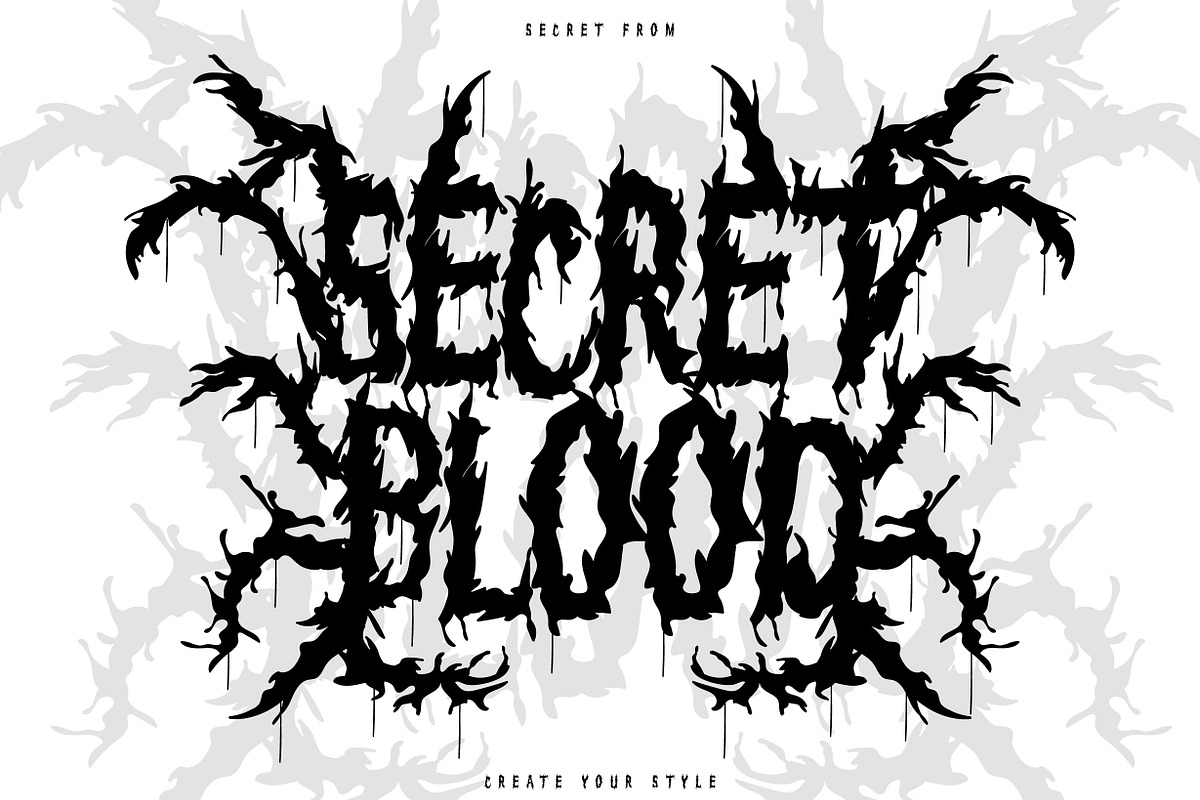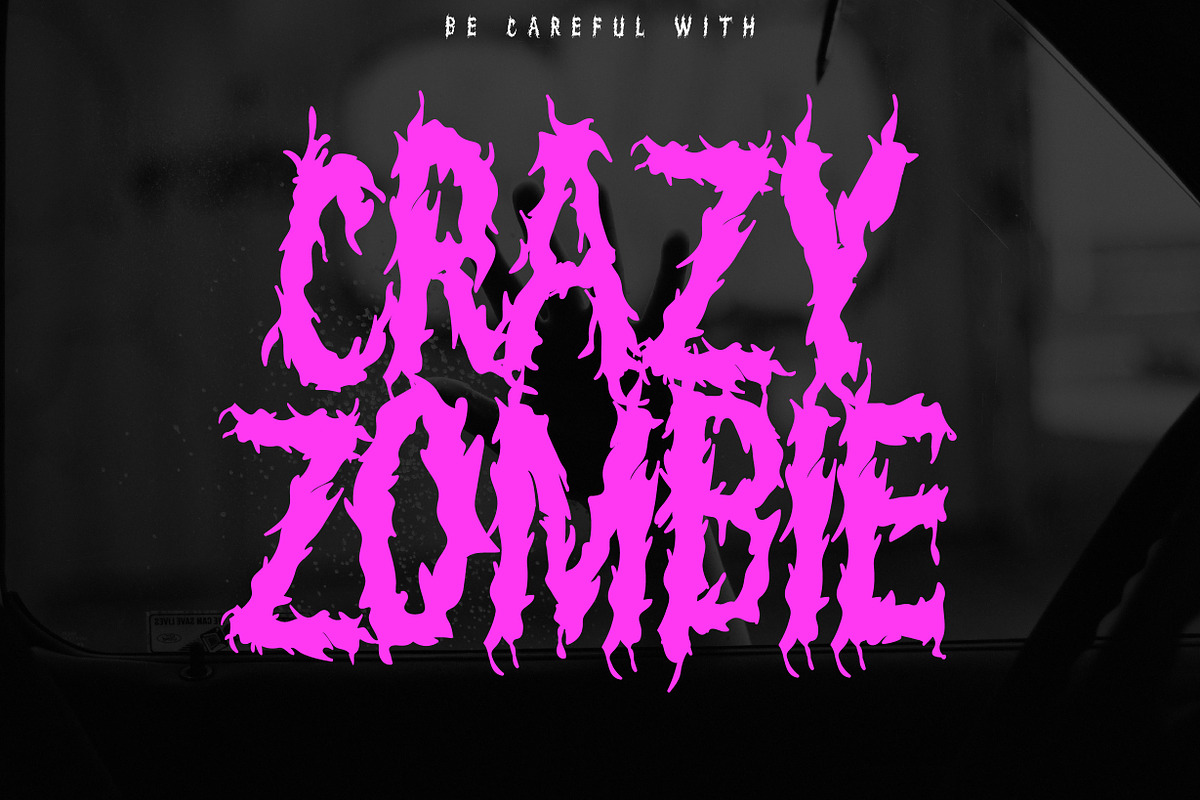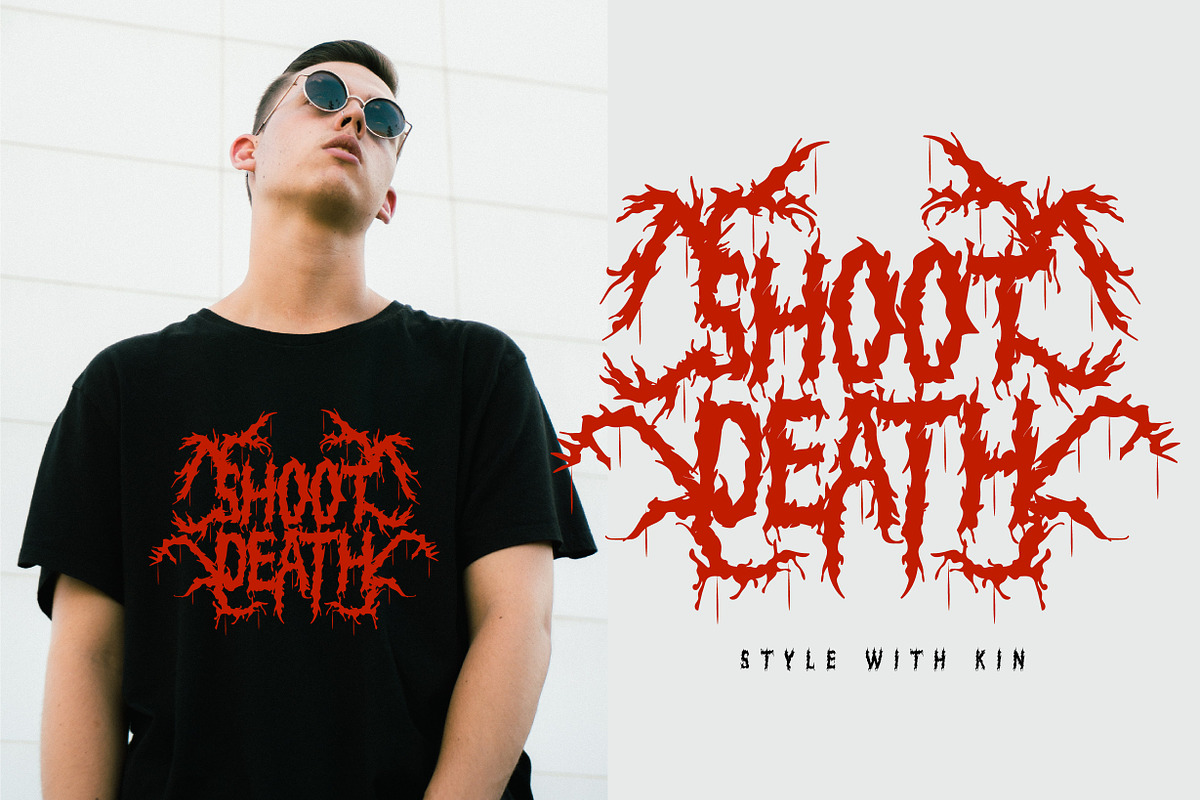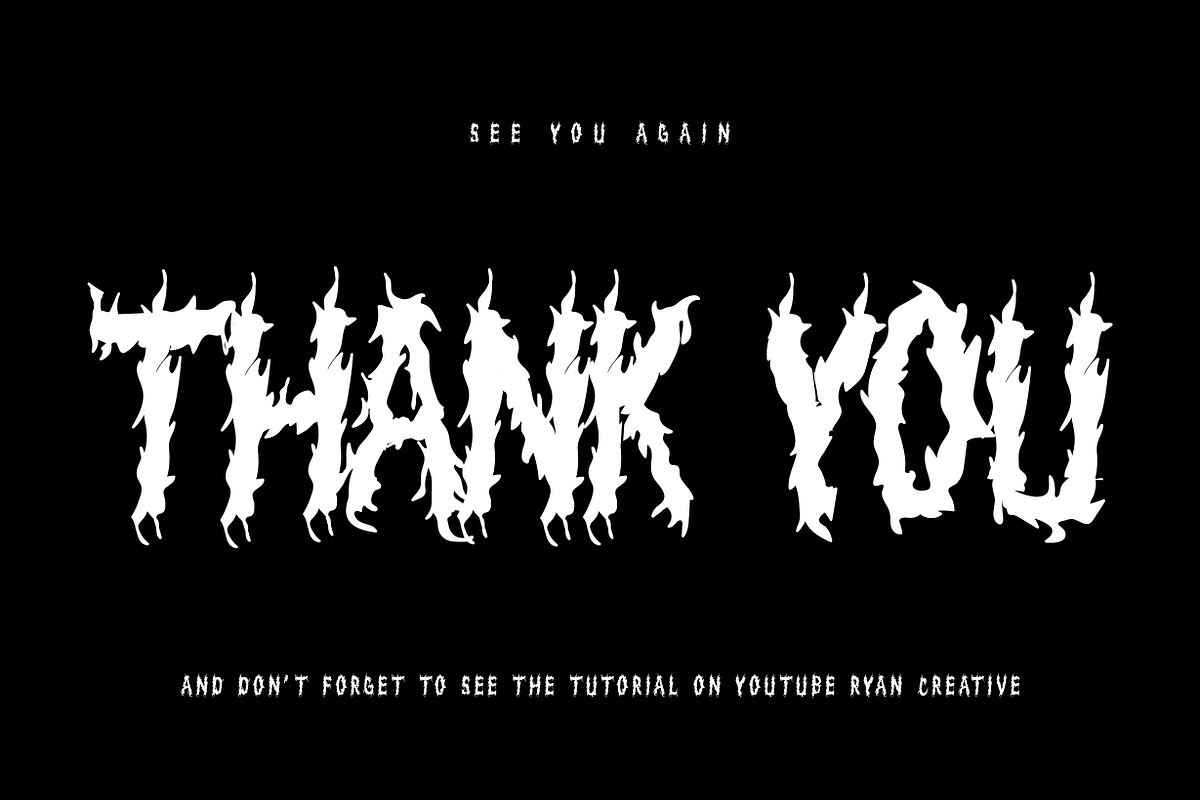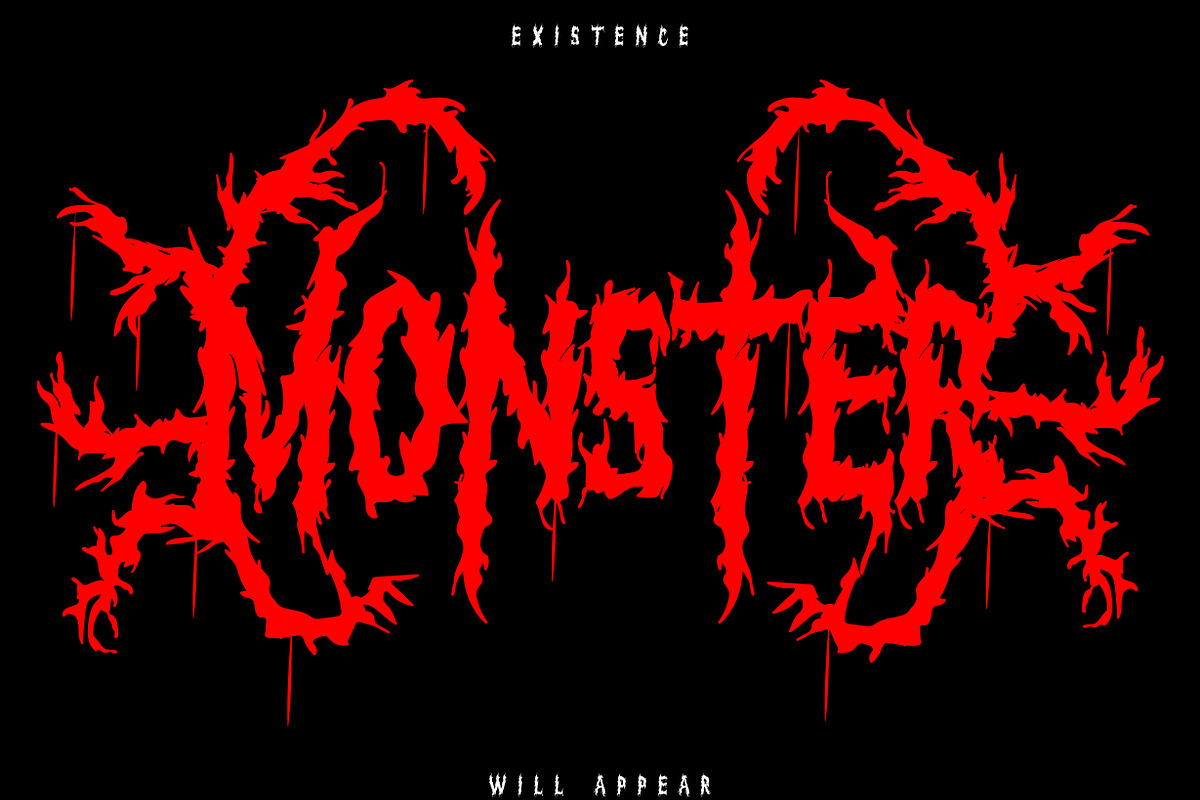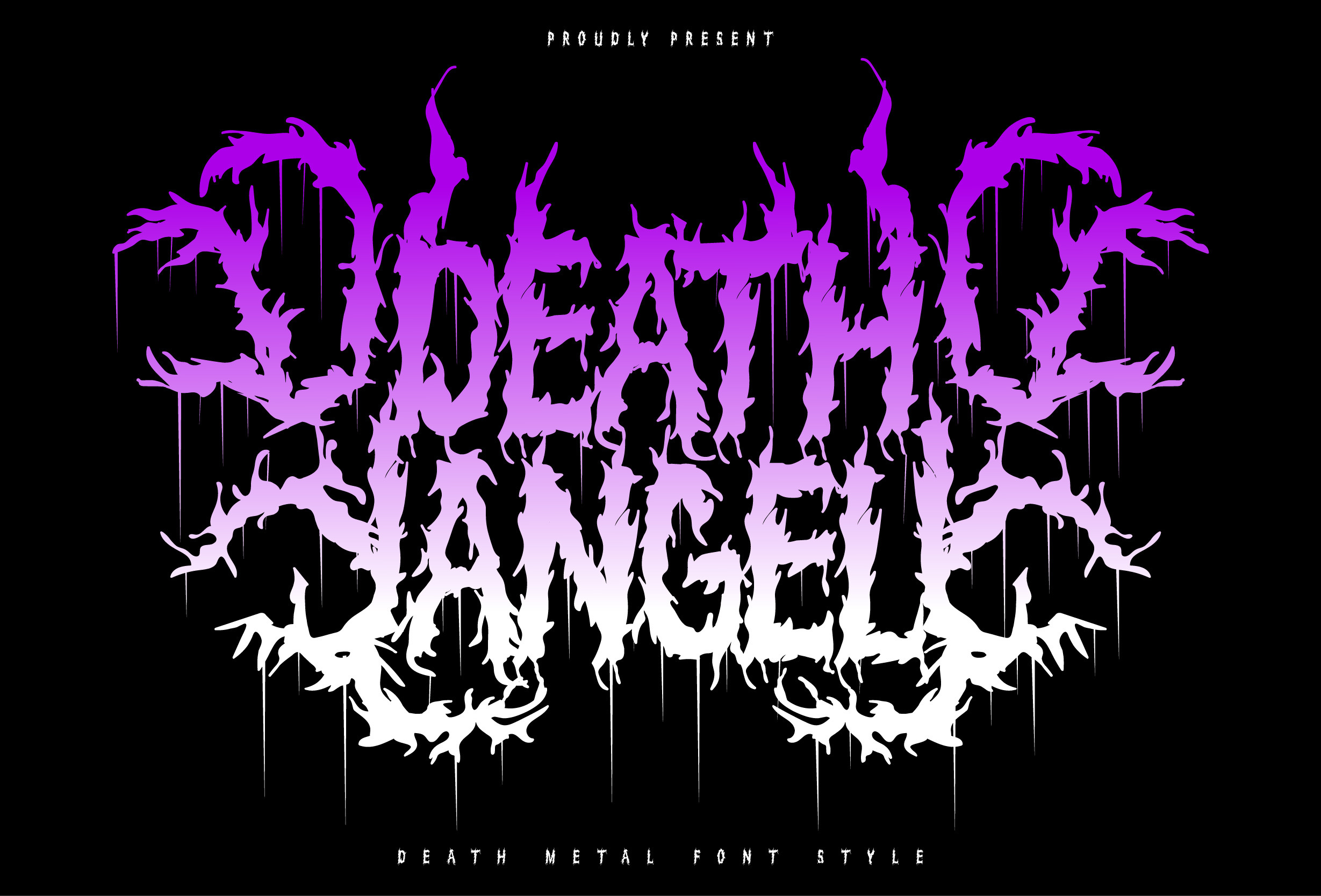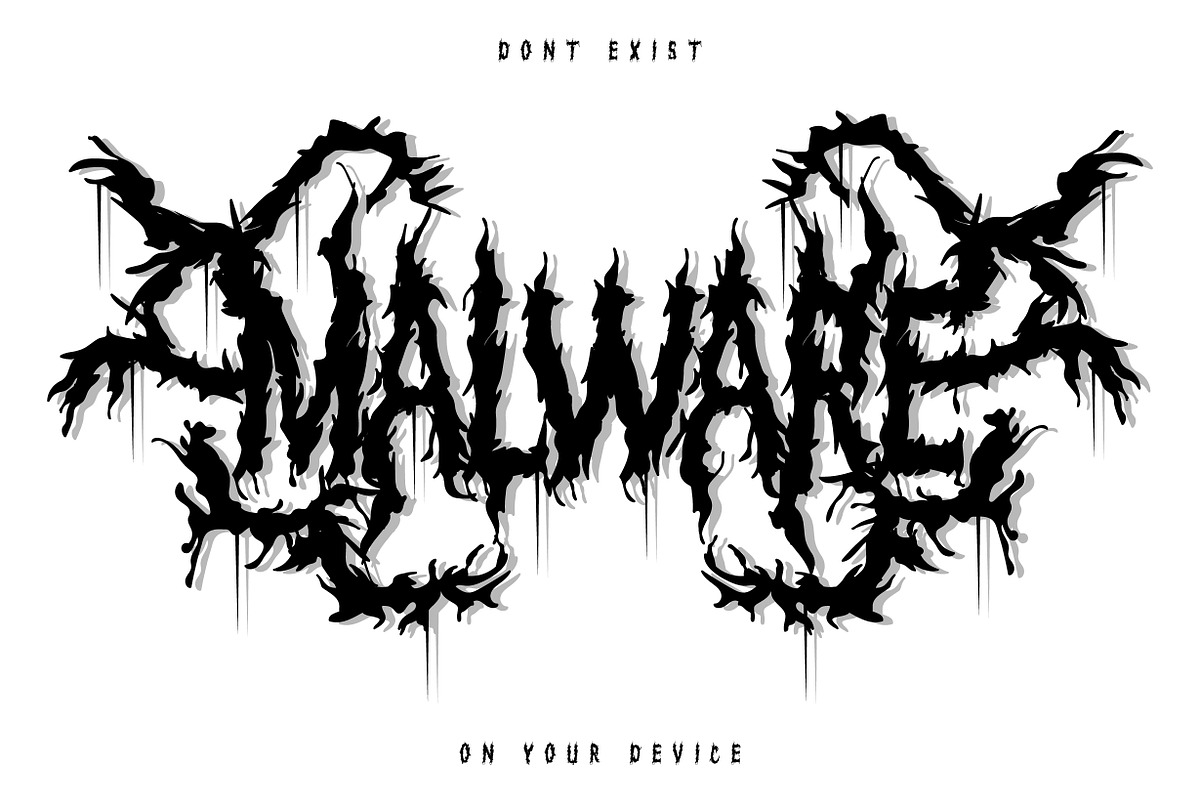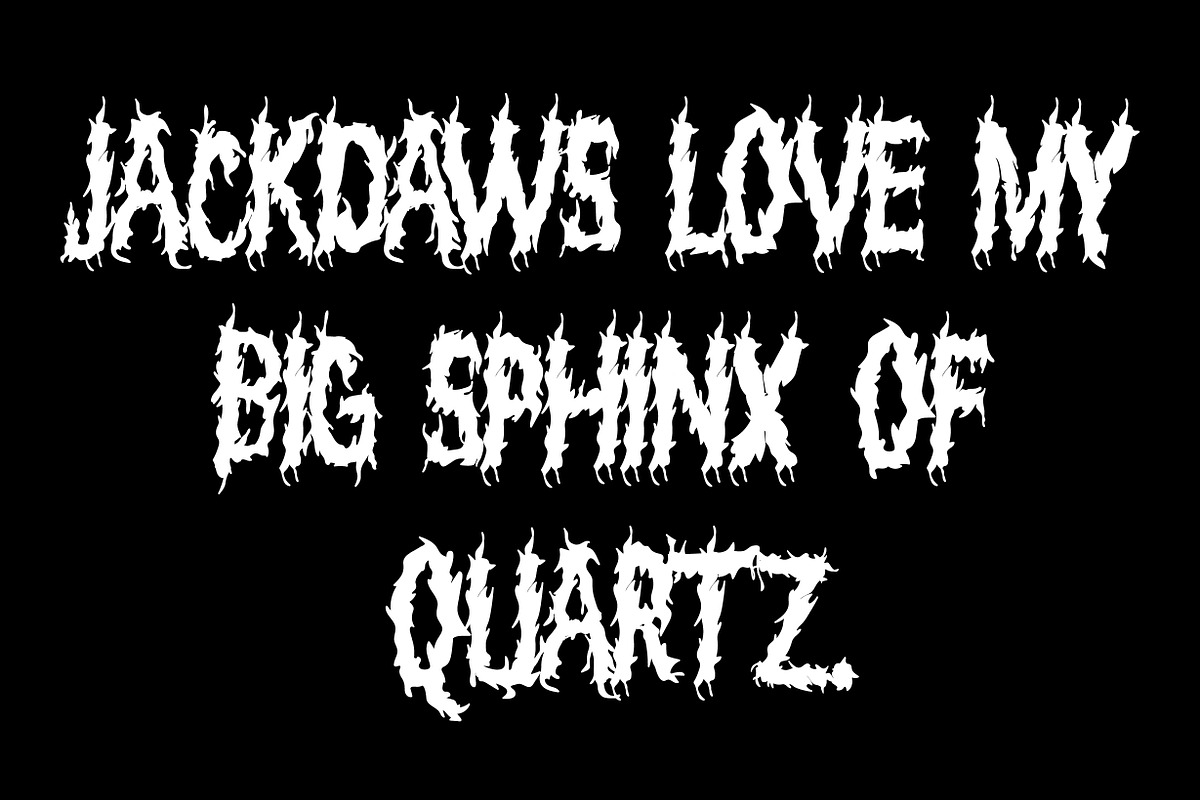
Death angel - Death metal font style
Death angel has a strong and aggressive look with crisp, sharp lines. This font has hard angles and leans slightly towards the vertical, giving it a sharp, scary feel. accompanied by additional ornaments that you can custom style yourself. can be applied like, t-shirt design, product design group name, quotation etc.
FEATURES;
-Uppercase,
-Support Foreign, Numbers and Punctuation.
-Ornaments.